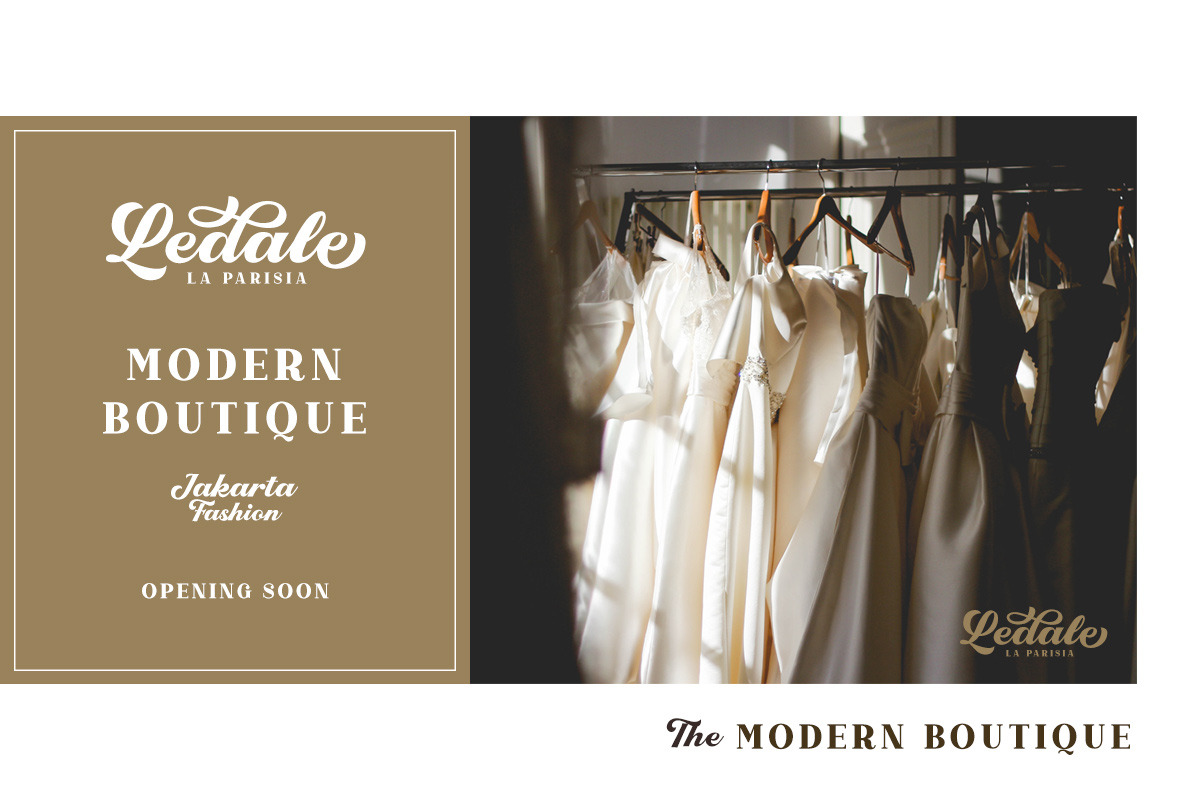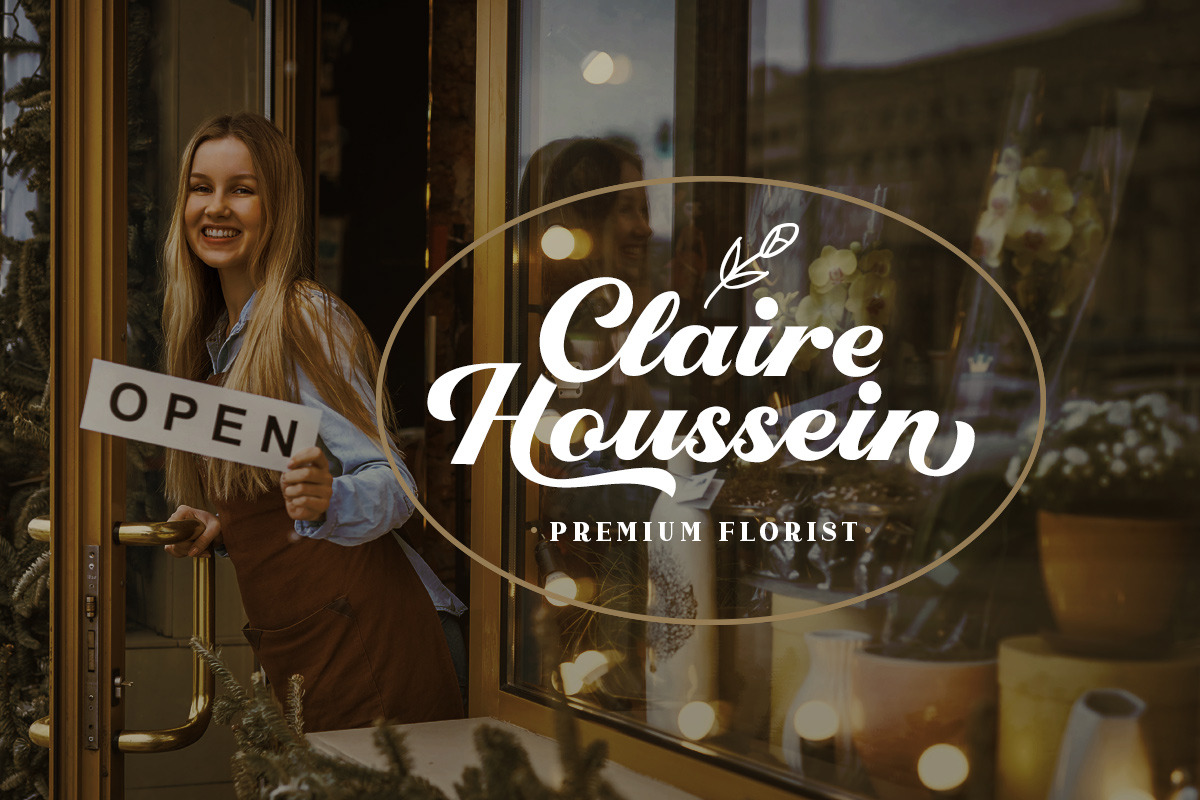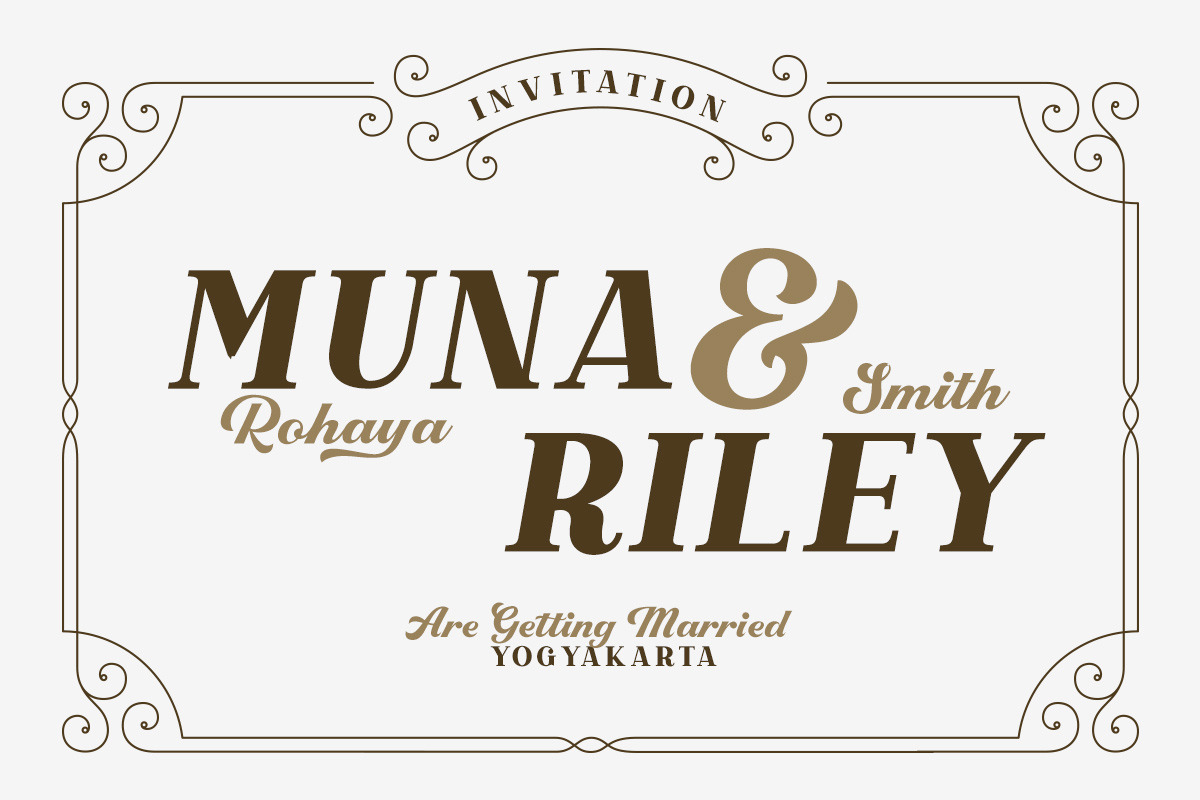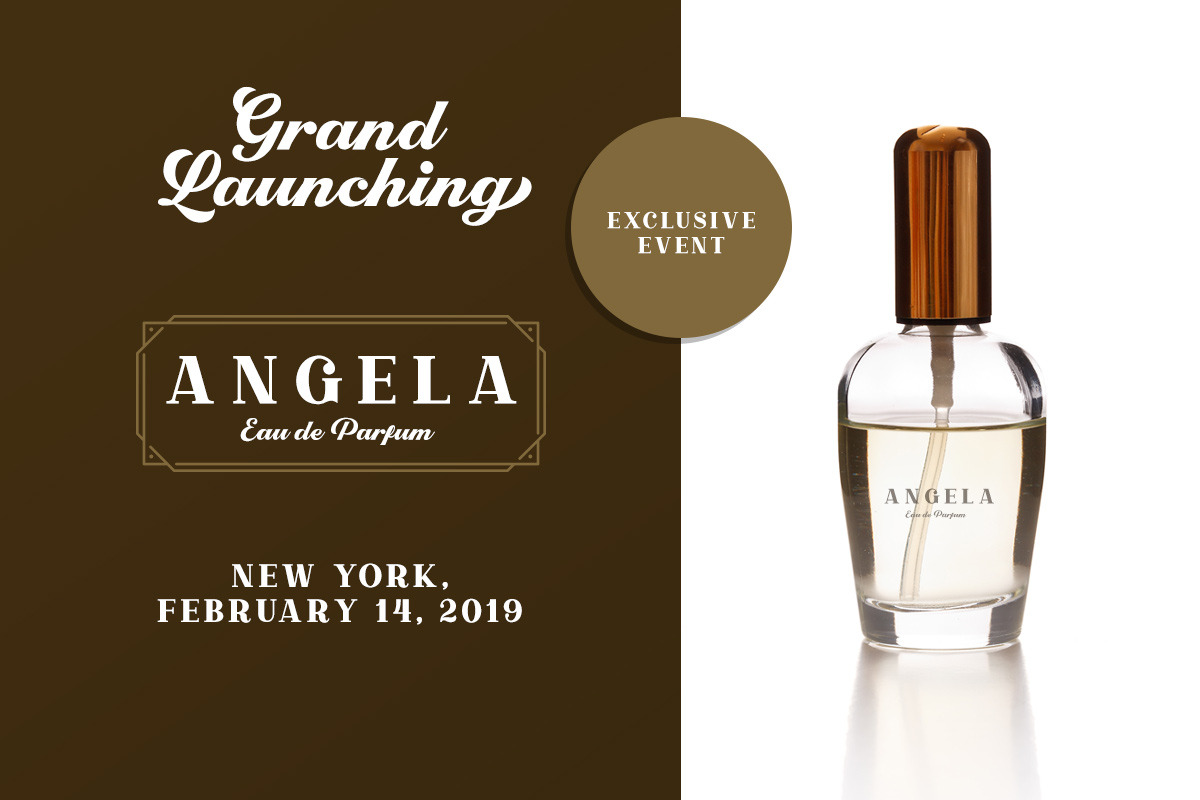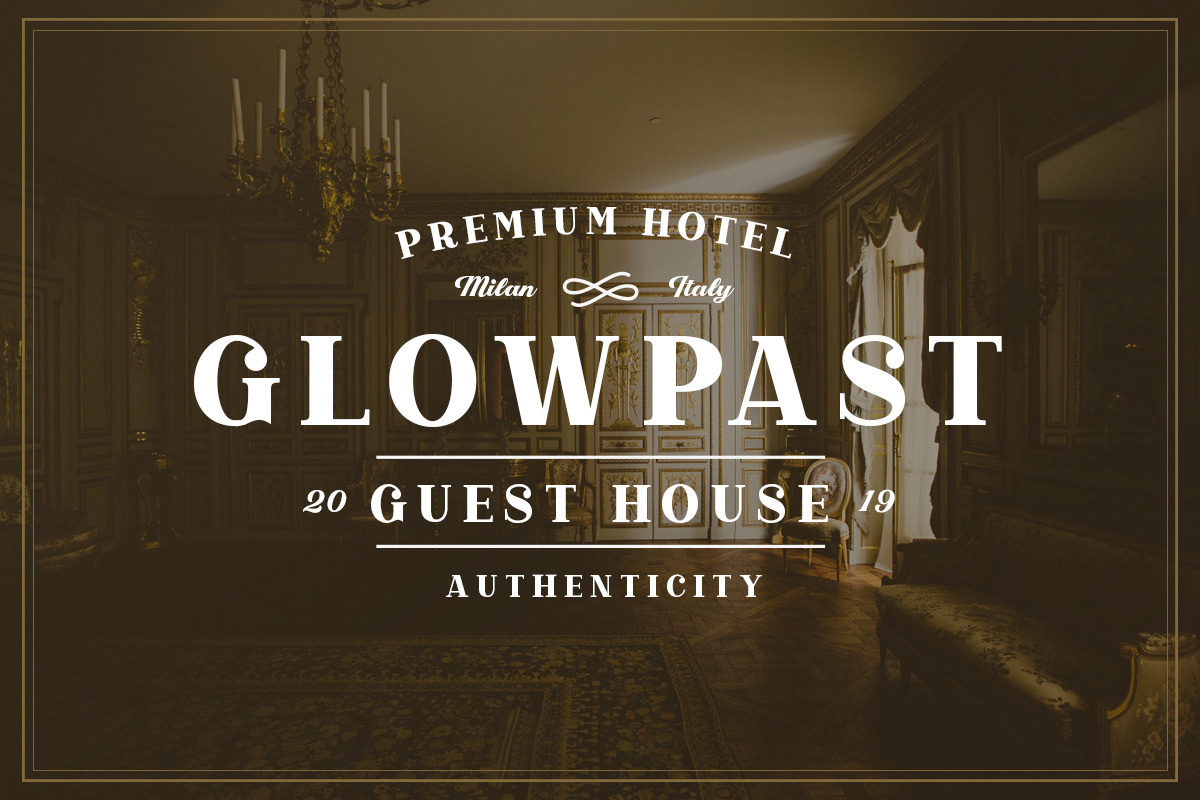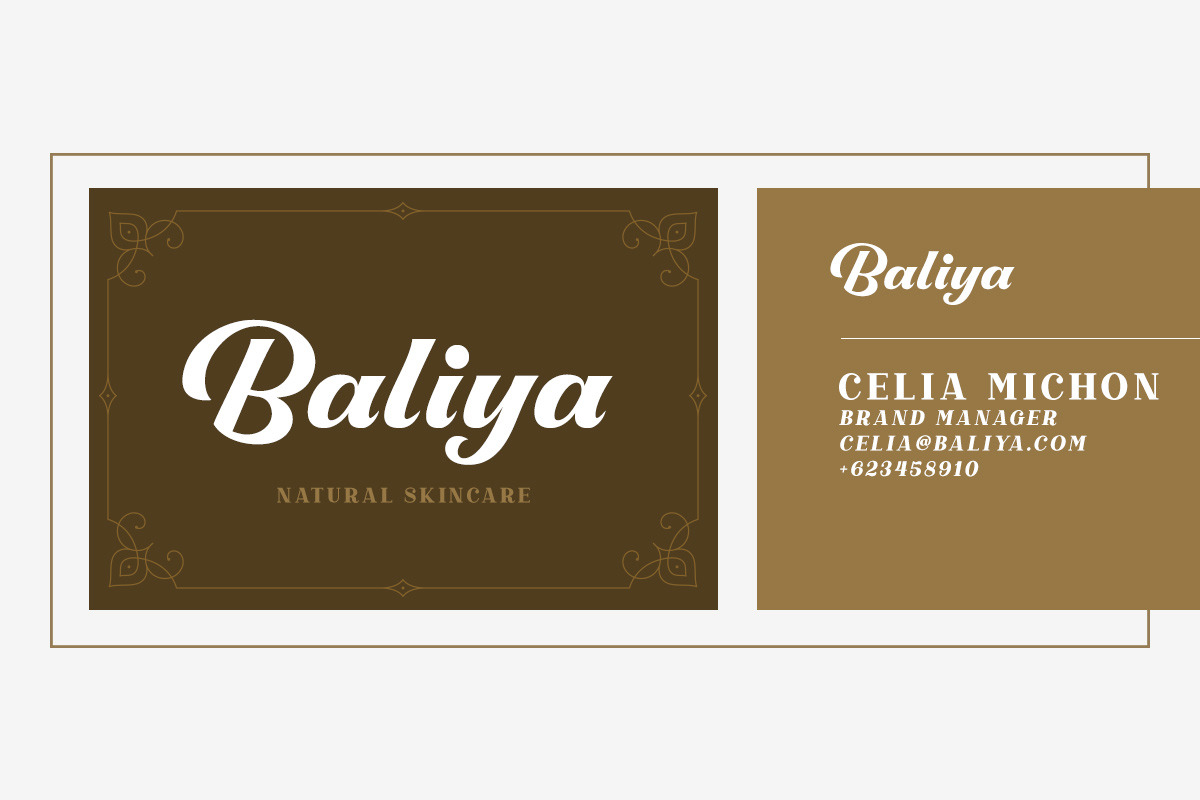
Righton - Script & Serif Font Duo
Introducing, Righton - a luxurious font duo that brings the classy and luxury look. It contains two fonts, script and serif which perfectly paired. They works perfect for you who needs a typeface for headline, logotype, apparel, invitation, branding, packaging, advertising etc. This typeface is comes in uppercase, lowercase, punctuation, symbols, numerals, stylistic set alternate, ligatures, etc also support multilingual. === We hope you enjoy the font, please feel free to comment if you have any thoughts or feedback. Or simply send me a PM or email me at letterhend@gmail.com
- It contains two fonts, script and serif which perfectly paired.
- This typeface is comes in uppercase, lowercase, punctuation, symbols, numerals, stylistic set alternate, ligatures, etc also support multili
- Righton Script Regular
- Righton Serif Regular
Righton - Script & Serif Font Duo by Letterhend Studio fits naturally into Branding, posters, packaging, typography.